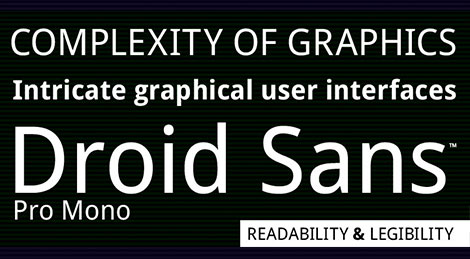
As a student, Steve found his passion for type among Rochester Institute of Technology’s collections of metal type, type-casting equipment and printing presses.
“My goal in designing typefaces is to provide a new tool that solves a specific need, whether it be for a new technology or to reinforce a unique brand voice. My designs are rooted in traditional principles of legibility and form with care to stay within a client's brief and specification.
When a new design is being matched to a new technology, I try to ensure that the interpretation retains as much of the spirit of the letterforms as possible while providing the best possible reading experience.”
Steve’s Work Surrounds Us
Steve Matteson designed the Droid font family for use in the Android™ platform. The Droid Sans, Droid Serif and Droid Mono fonts were created primarily for use in mobile phones. Wired.com reported that “The early consensus is that designers are ga-ga over Droid” and Gizmodo said the “System Fonts for Android Look Clean and Google-y”.